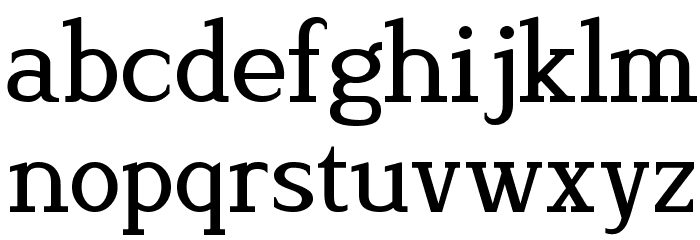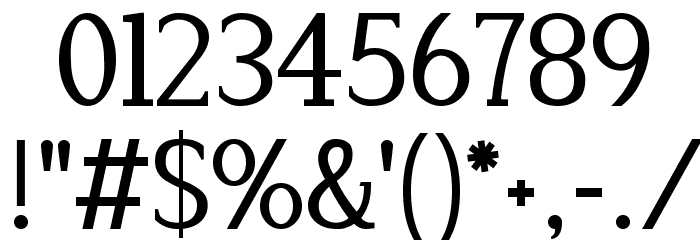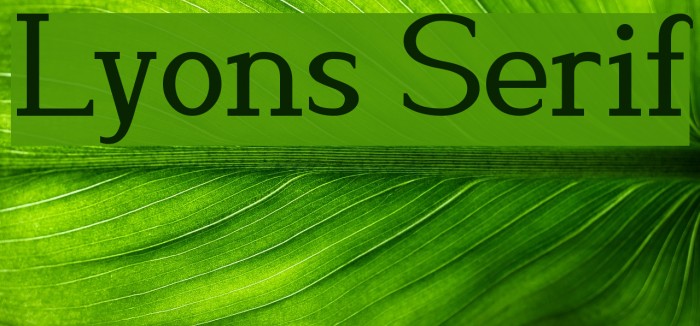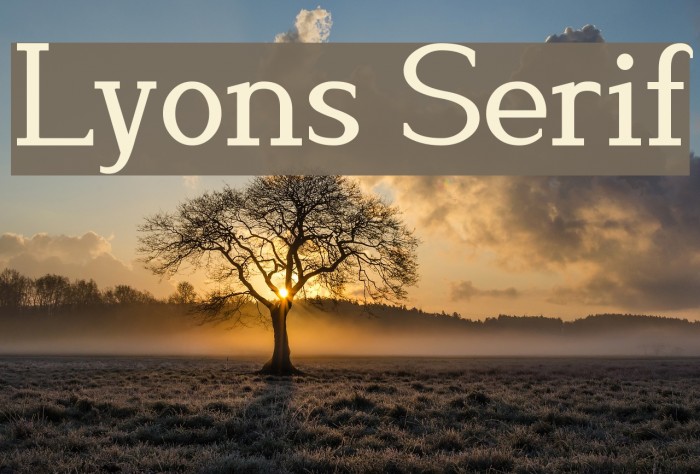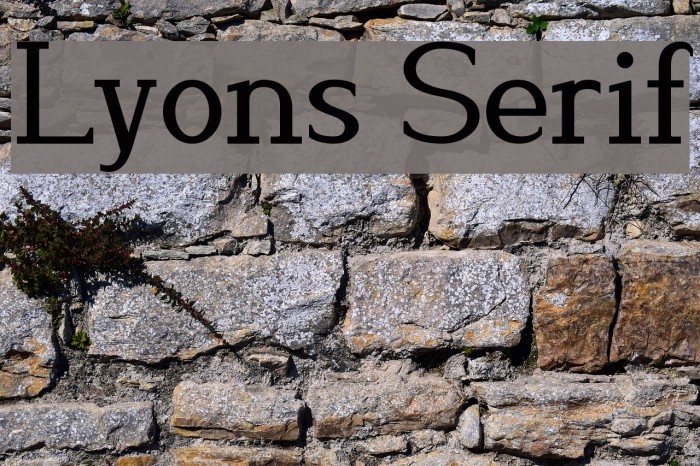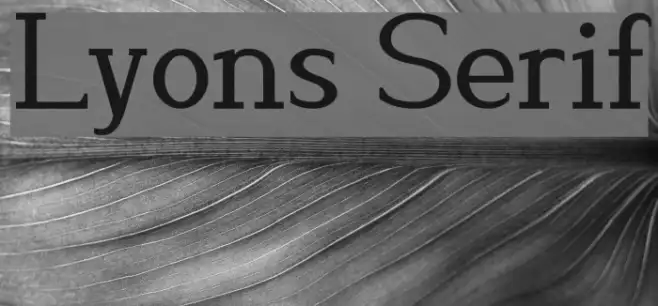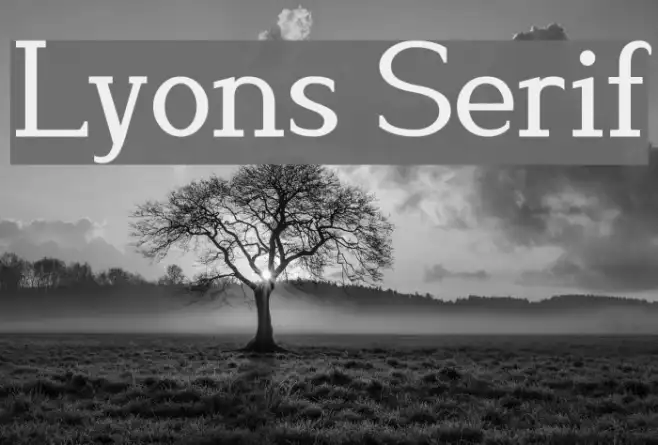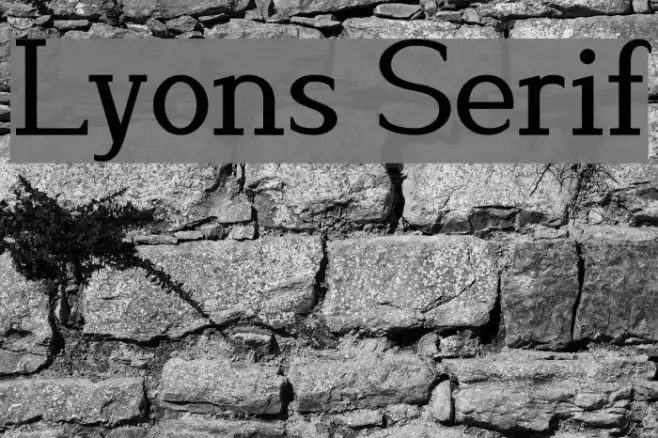
Lyons Serif Font
This serif typeface exudes a classic and timeless elegance, characterized by its refined and balanced letterforms. The uppercase letters are stately and well-proportioned, while the lowercase letters maintain a harmonious flow with subtle curves and serifs. The numerals are clear and legible, making them suitable for both display and text settings. Special characters are thoughtfully designed, ensuring consistency across the typeface. The overall design is versatile, making it suitable for a wide range of applications from editorial design to branding.
A classic serif typeface with elegant and balanced letterforms.
- Proposed Projects: Ideal for editorial design, book covers, branding, and formal invitations.
- Category: Serif
- Overall Style: Classic